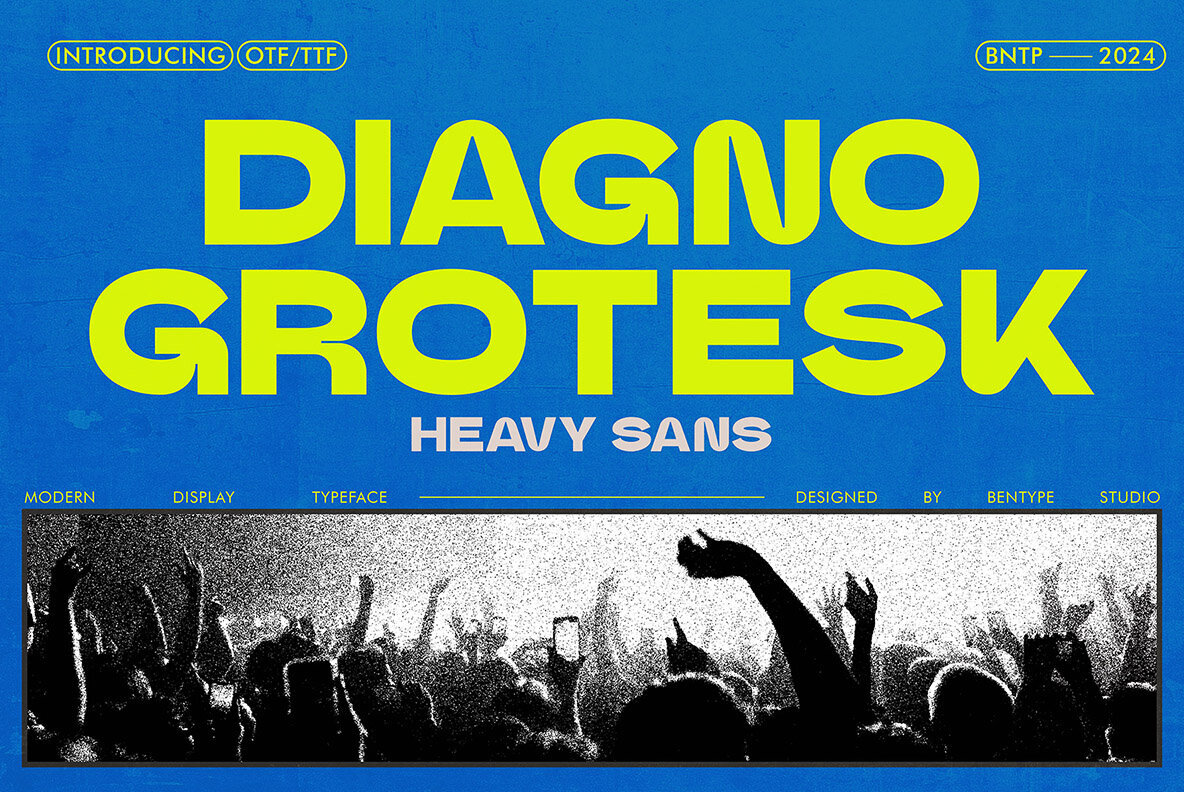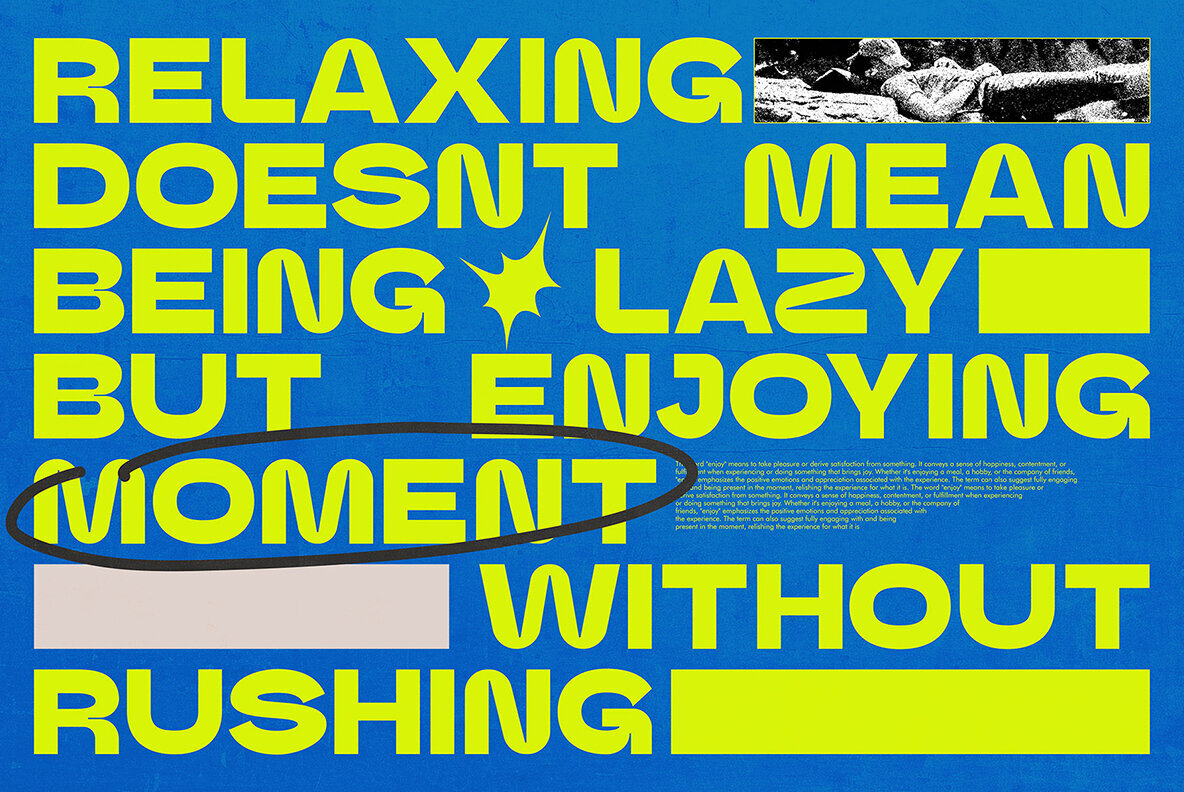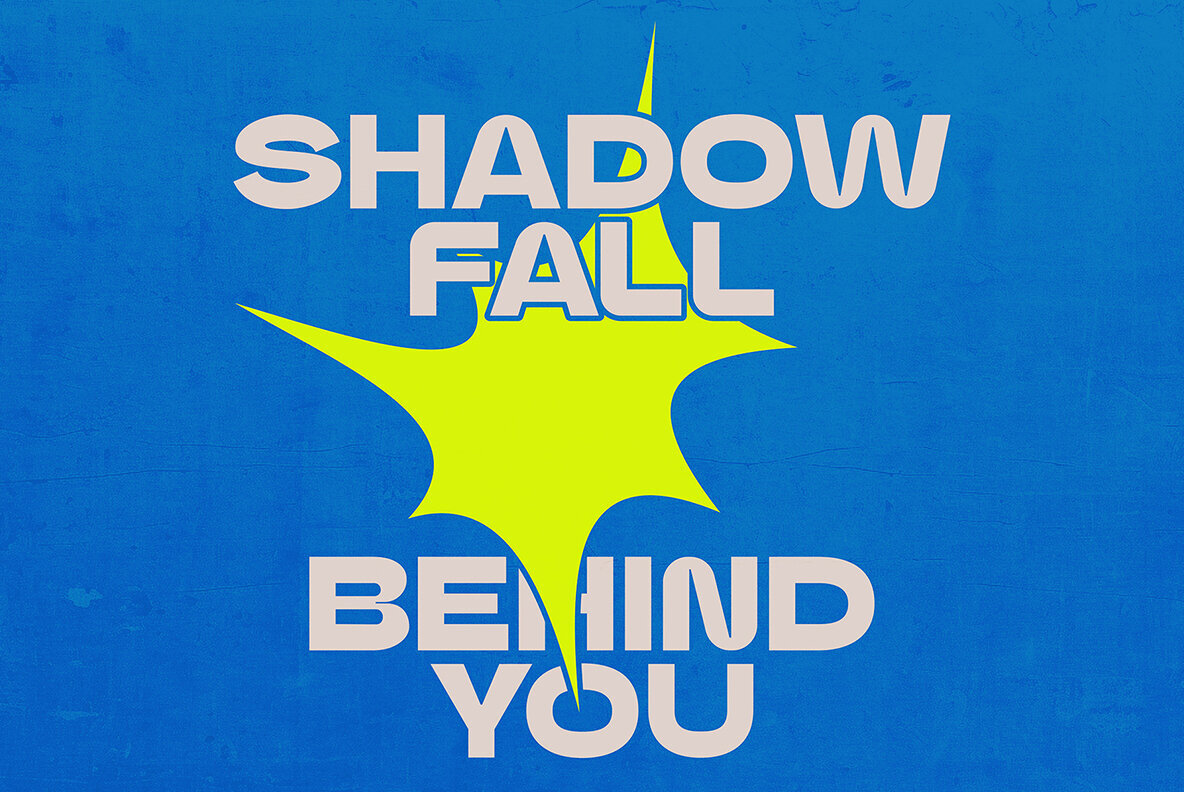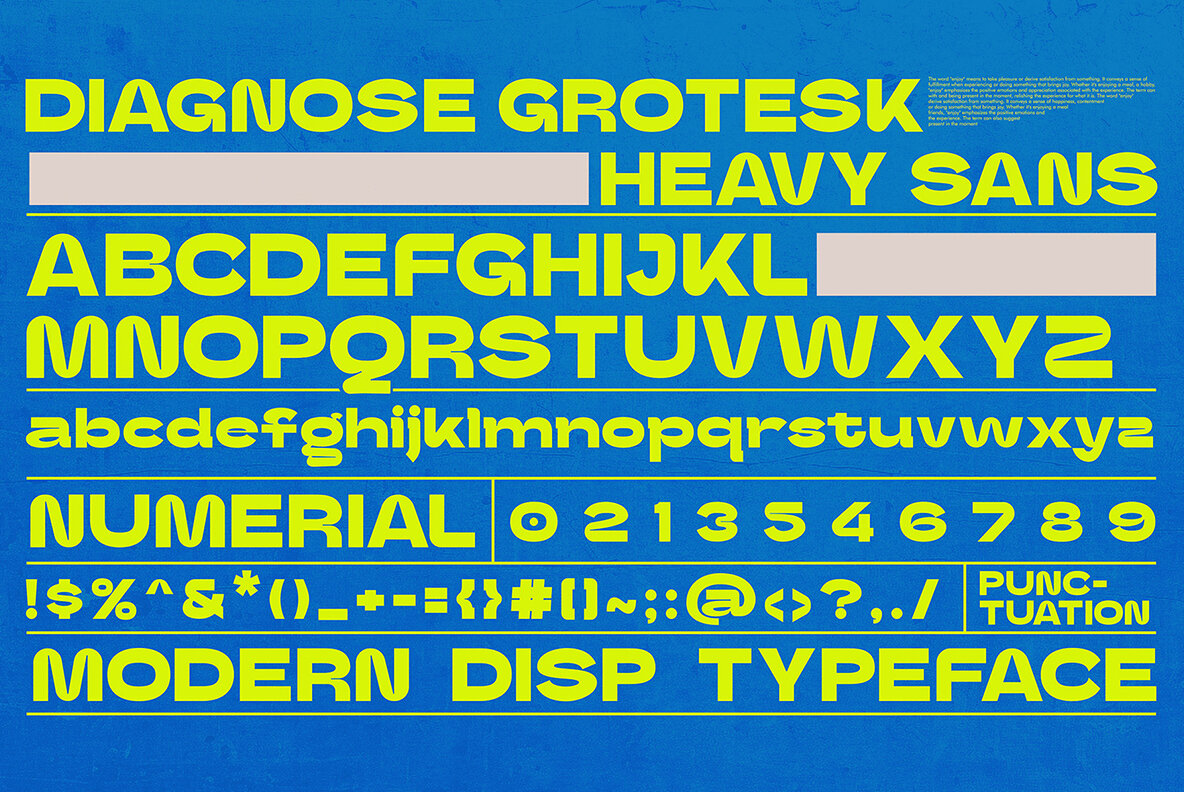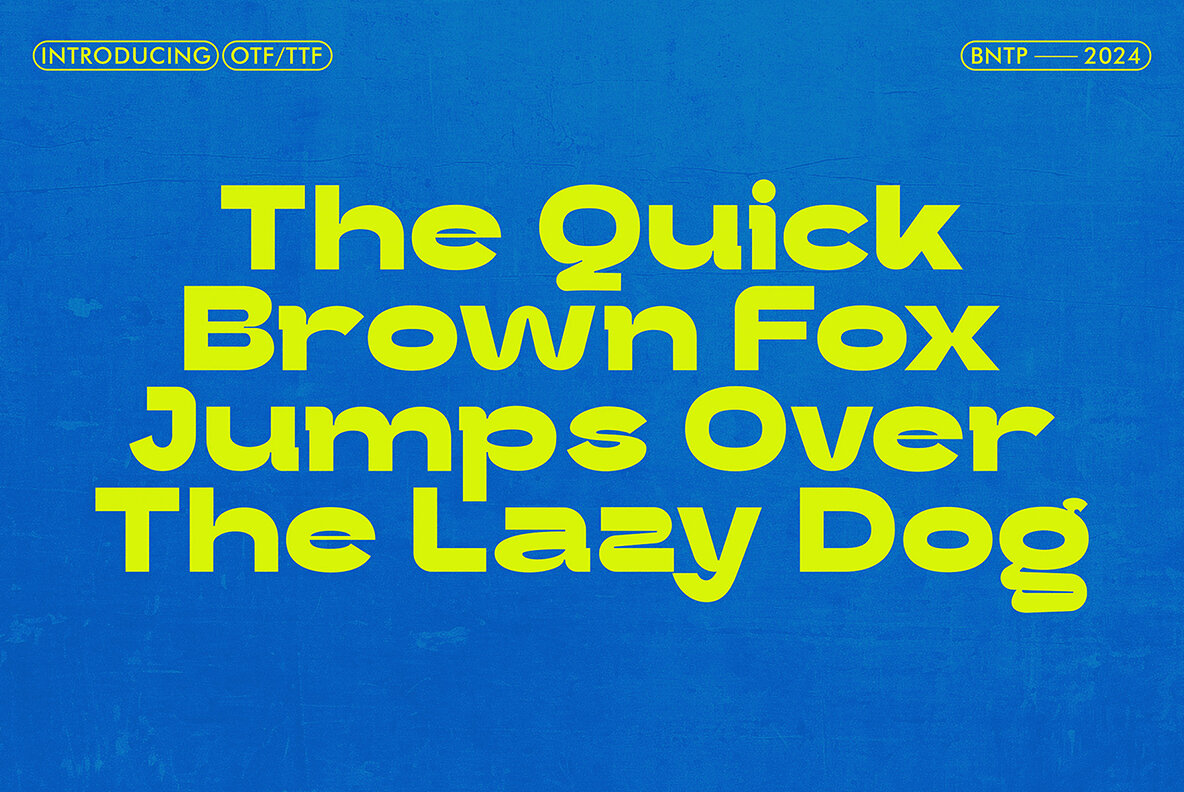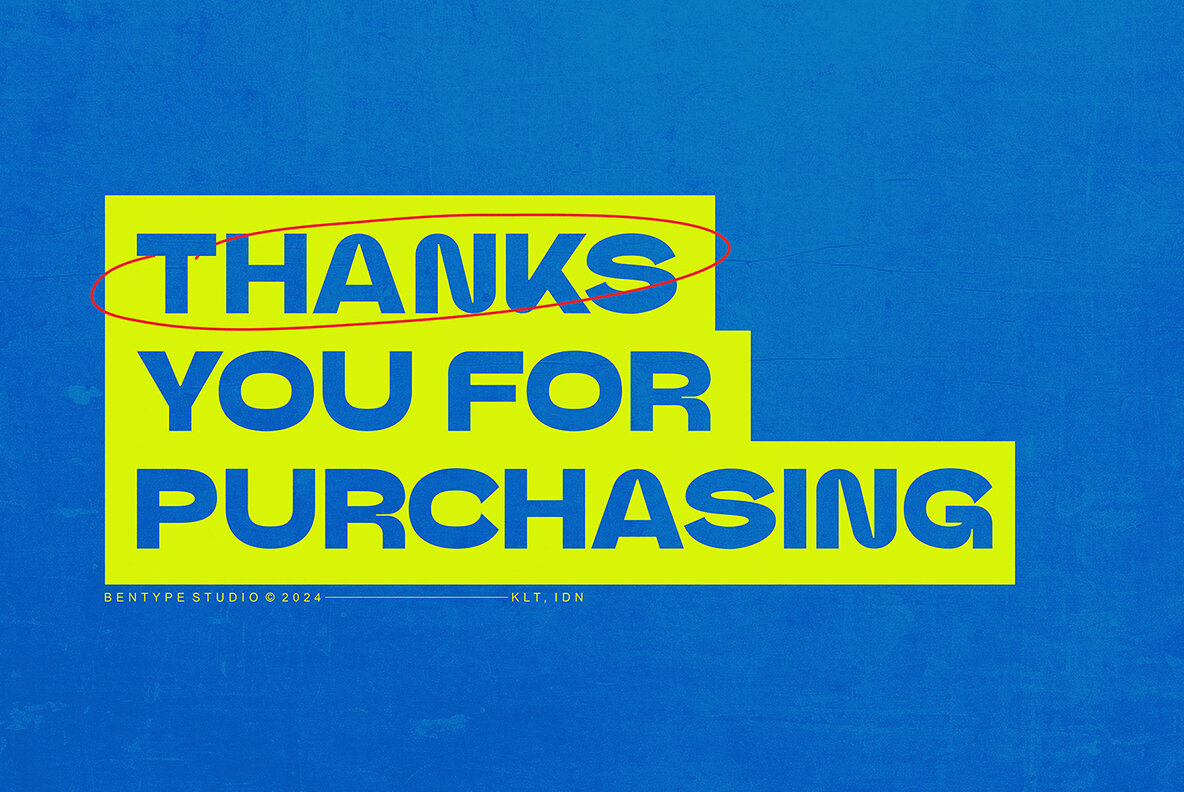
Diagno Grotesk Font
Diagno Grotesk is a contemporary sans-serif display font characterized by its unique stems and joins. Despite a limited character set and pixel resolution, it captivates with its distinct visual appeal and nostalgic charm. This condensed font is ideal for displays, headlines, and banners, catering to diverse design needs.Diagno Grotesk: Modern Sans Display Font